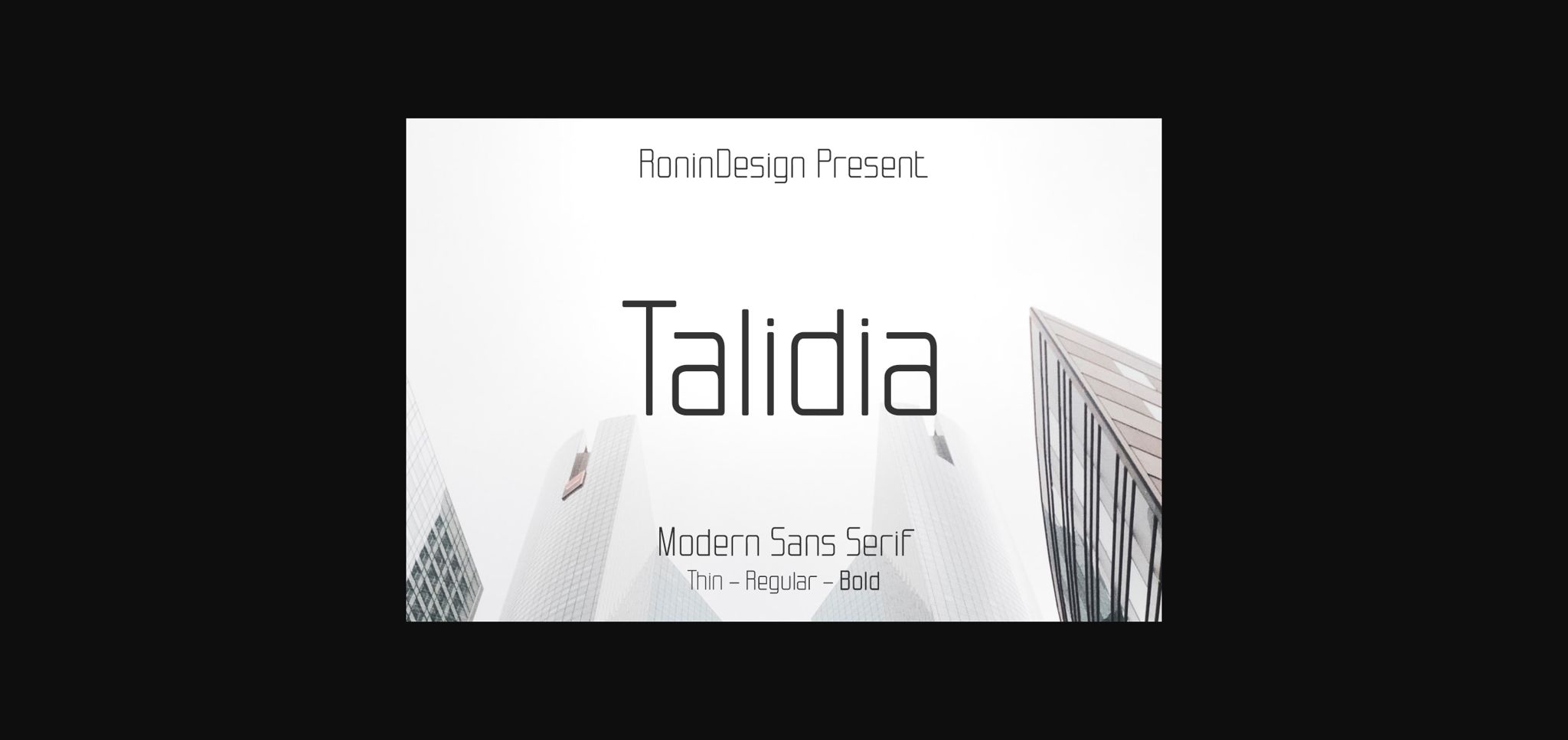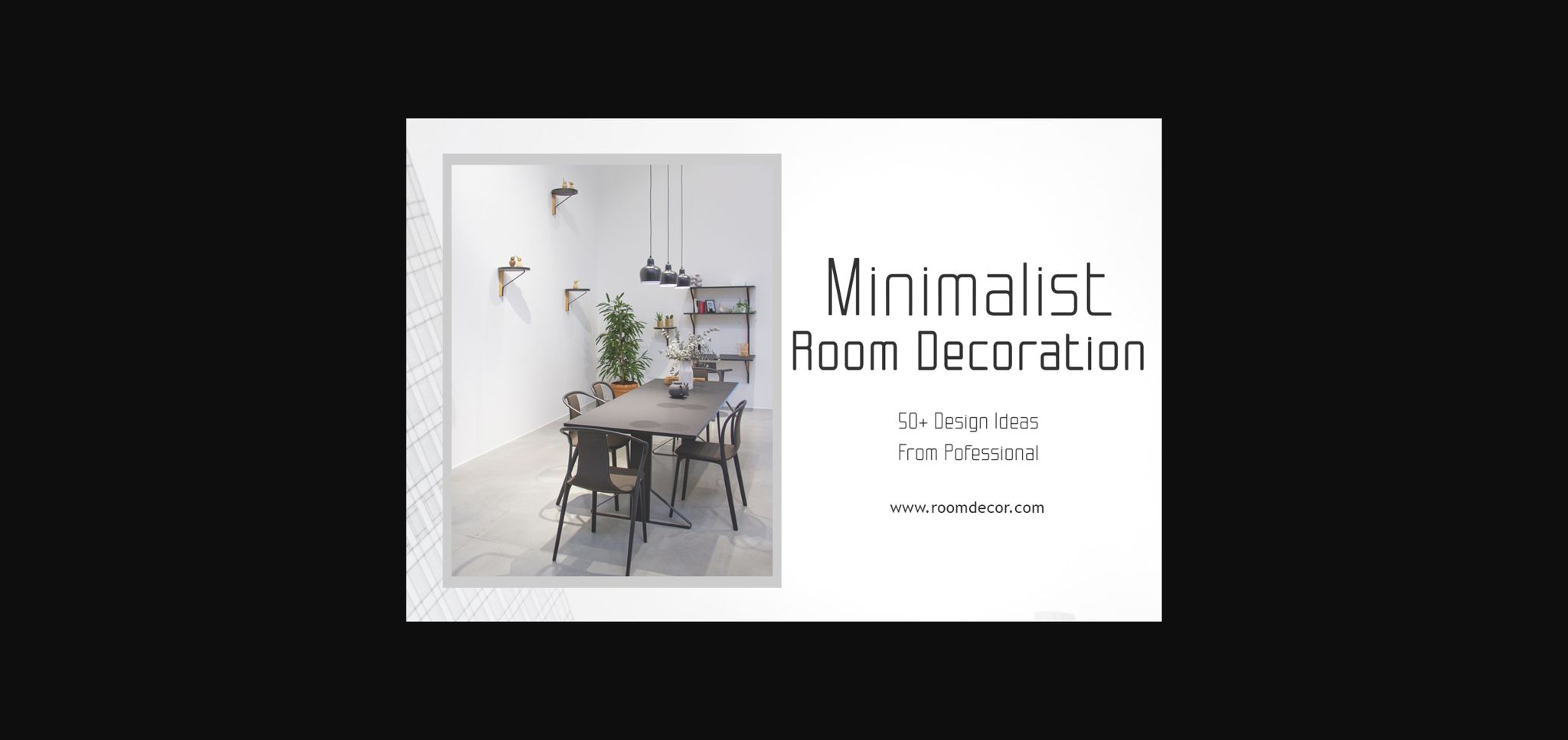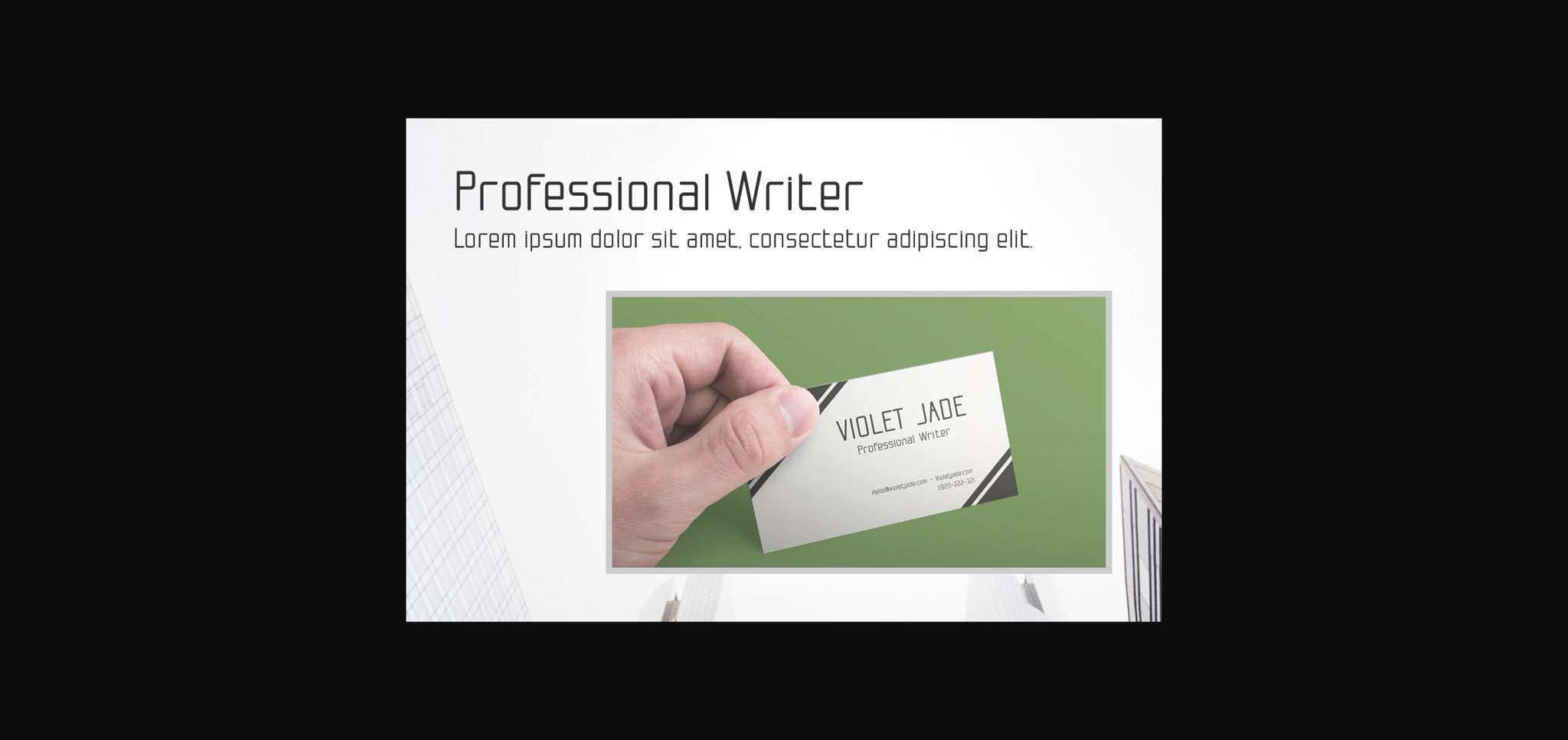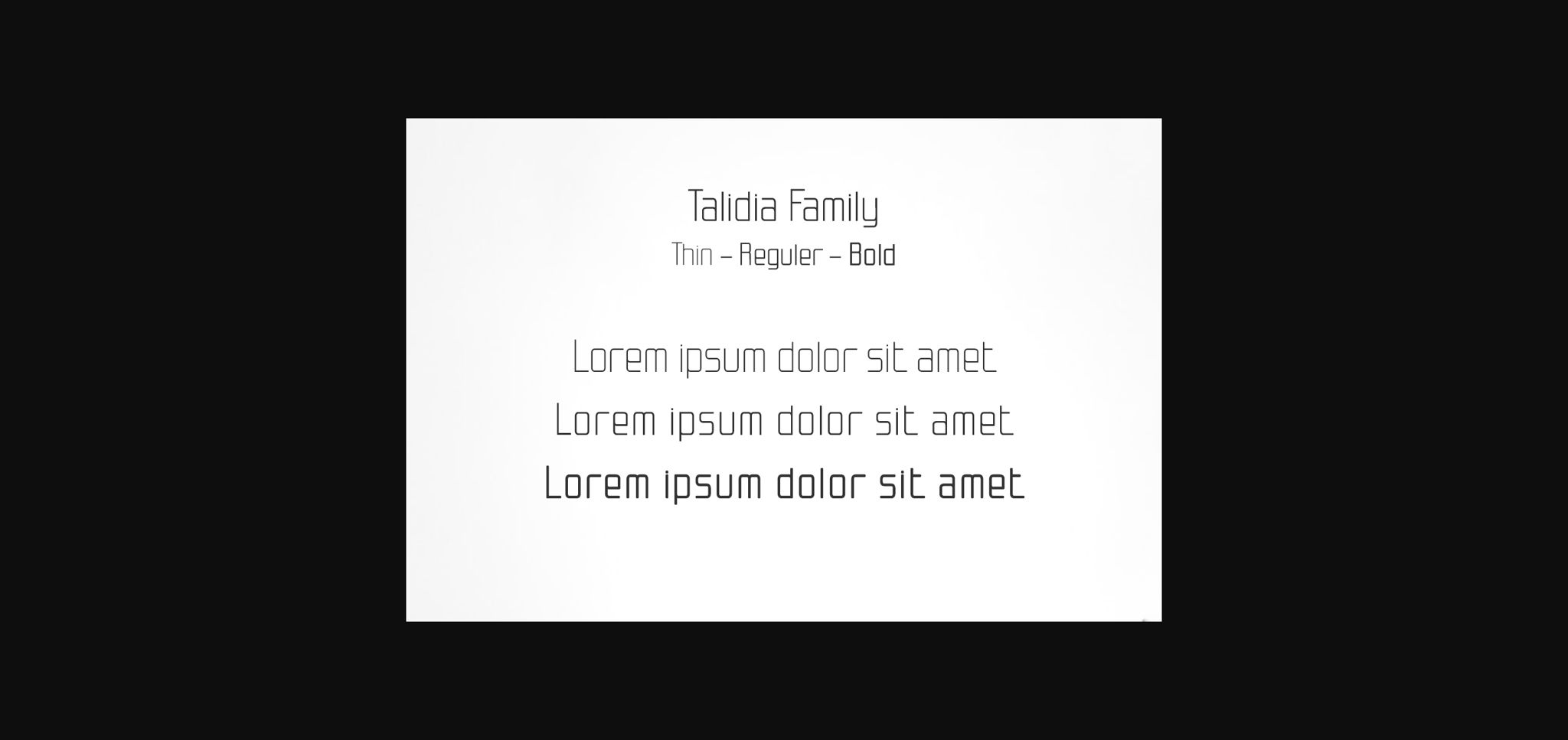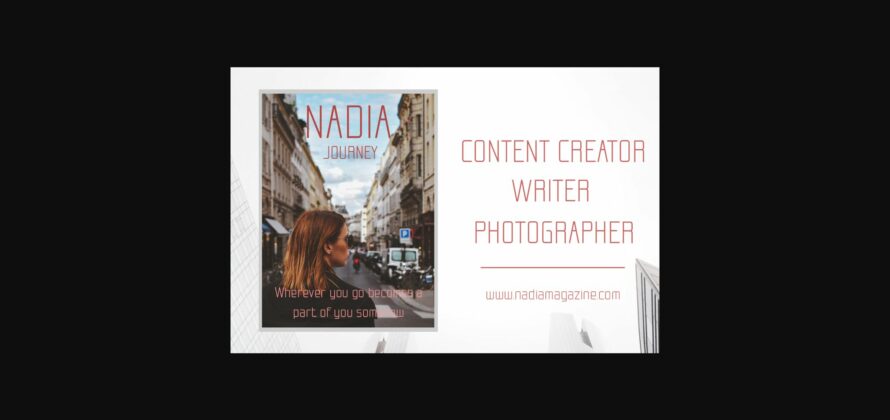
Talidia Font
About Talidia Font
Talidia is a modern sans serif, featuring a tall, thin and classy style. Add this font to your favorite creative ideas and notice how it makes them come alive!